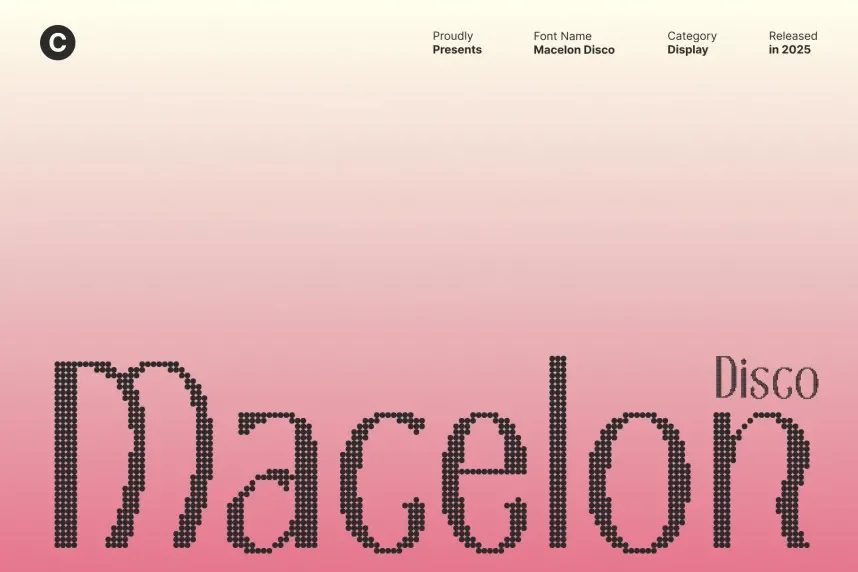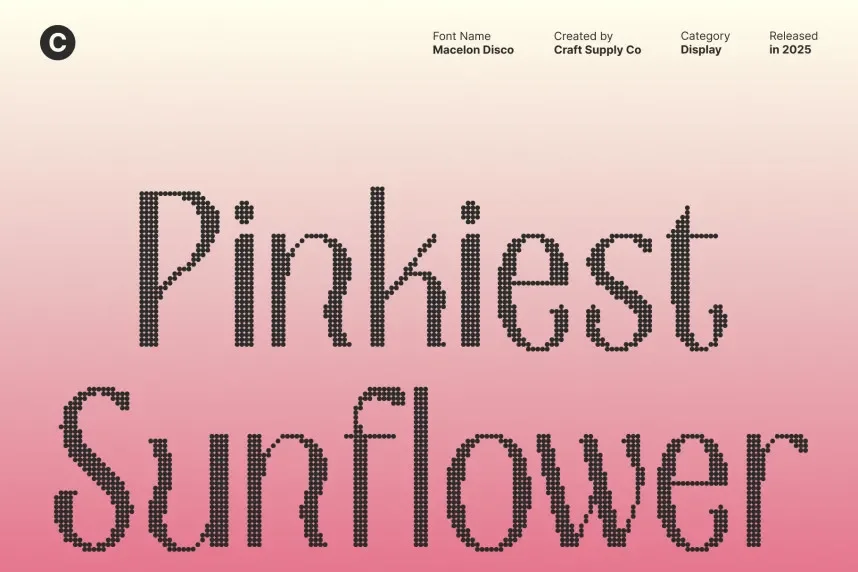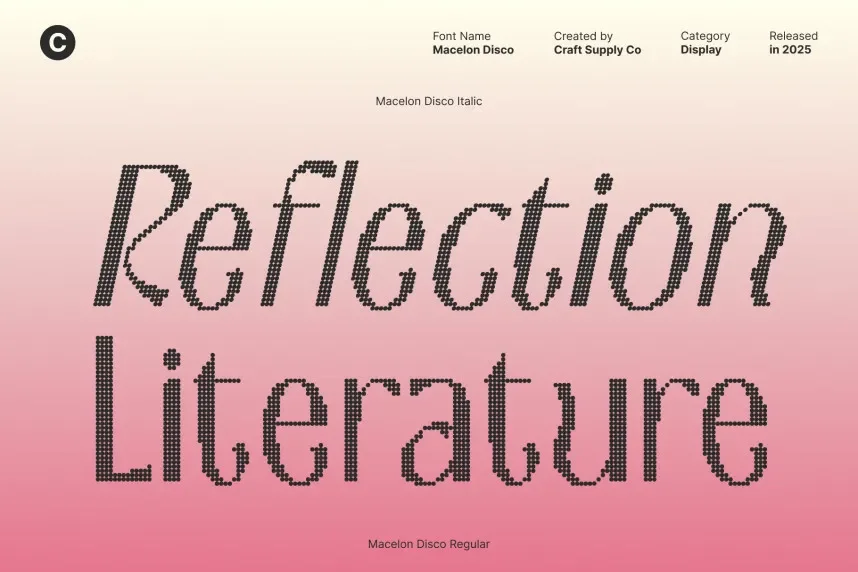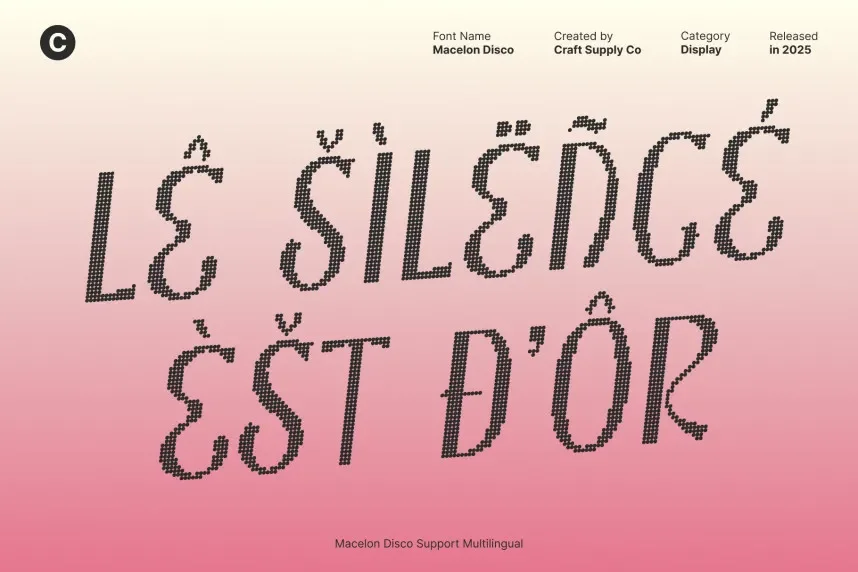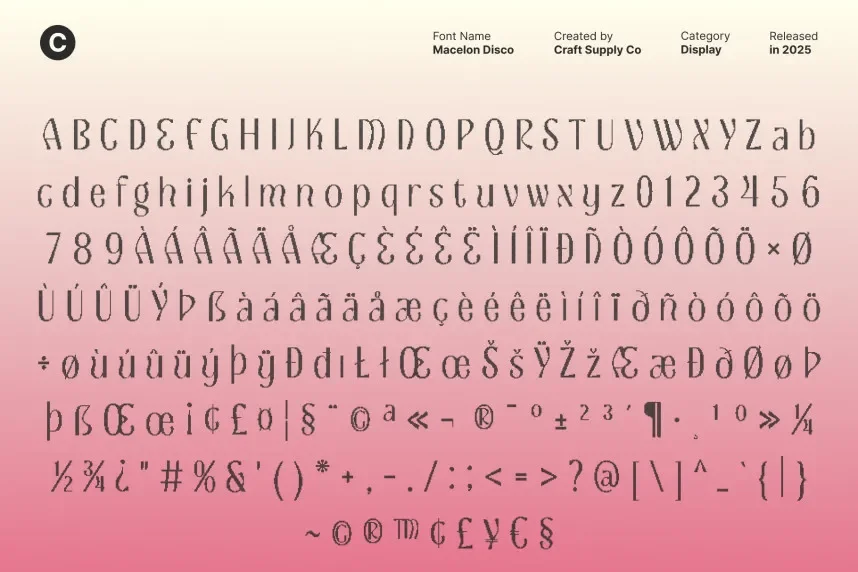
Macelon Disco Font is a bold, geometric typeface with a unique retro vibe. It’s perfect for designs that require a standout style, such as event posters, logos, and signage where a strong visual impression is essential.